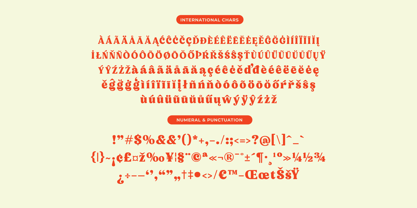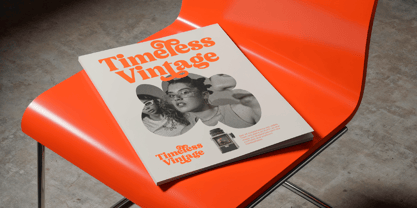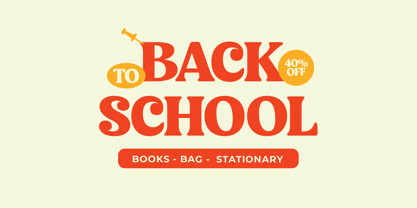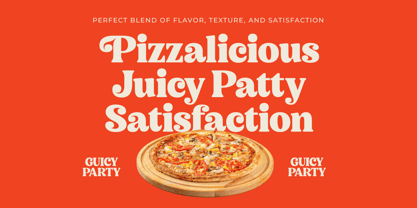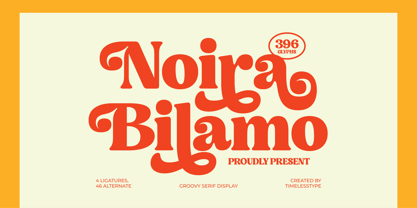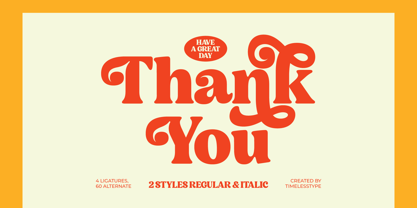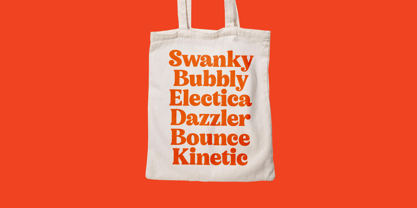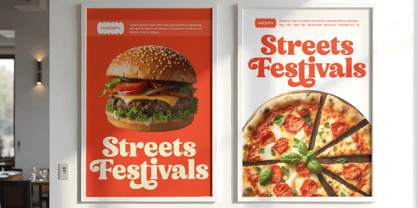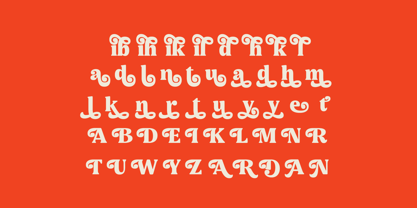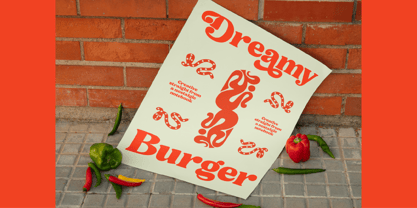
Noira Bilamo
The Noira Bilamo Font Family was designed by Heru Utama Putra and published by Timelesstype Studio. Noira Bilamo contains 2 styles and family package options.
Noira Bilamo - Groovy Serif Display , from Timelesstype , Suitable for any projects such as: logos, branding projects, homeware designs, product packaging, mugs, quotes, posters, shopping bags, t-shirts, book covers, name card, invitation cards, greeting cards, label, photography, watermark, special events, and all your other luxury and beautiful projects that need a Luxury Serif taste.